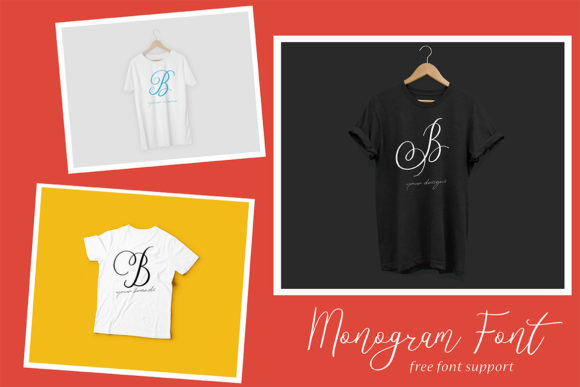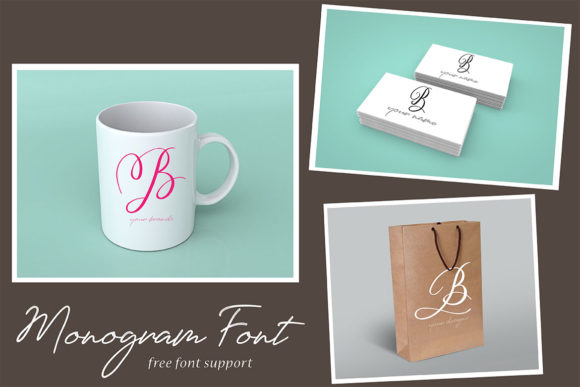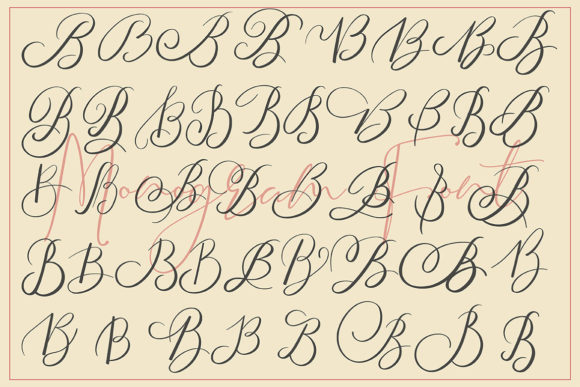
Introduction to Monogram B | Monofont Caps B Font
Have you ever stared at a blank piece of paper, waiting for inspiration to strike, only to find yourself doodling a simple yet elegant monogram? This is exactly how many designers come up with their most creative ideas. For those looking to add a personal touch to their projects, Monogram B | Monofont Caps B Font is an invaluable resource. This unique font features 36 different styles of a natural handwriting of capital B, making it perfect for creating one-of-a-kind monograms.
What sets Monogram B apart is its versatility. With a high-quality design and transparent background, this font is ideal for any creative project. Whether you’re working on a wedding invitation, a logo, or a branding project, Monogram B | Monofont Caps B Font is a valuable addition to your design resource library. And the best part? It’s available for free download, making it accessible to designers of all levels.
Key Features of Monogram B | Monofont Caps B Font
- High-quality design for various creative projects, including branding and logos
- Unique monogram style with bold and modern lines, suitable for a variety of design applications
- Includes transparent background, allowing for easy customization and integration into designs
- Vector-based font, ensuring high-resolution quality and scalability
- Perfect design resource for designers, artists, and entrepreneurs looking to create professional and eye-catching designs
Honest Review: Monogram B | Monofont Caps B Font
As a designer, I’m always on the lookout for high-quality fonts that can elevate my creative projects. Monogram B | Monofont Caps B Font has been a great addition to my design resource library.
- ✨ Beautifully designed monogram letters that can be used for a variety of creative projects, from branding to invitations.
- ✨ High-quality vector files that can be easily scaled without losing any detail.
- ✨ Transparent background, making it easy to combine with other design elements.
- ⚠️ Limited character set, which may not be suitable for longer text-based projects.
- ⚠️ Not as versatile as some other fonts, which may limit its use in certain design contexts.
Overall, Monogram B | Monofont Caps B Font is a great addition to any designer’s library. While it may have some limitations, its high-quality design and versatility make it a valuable resource for any creative project.